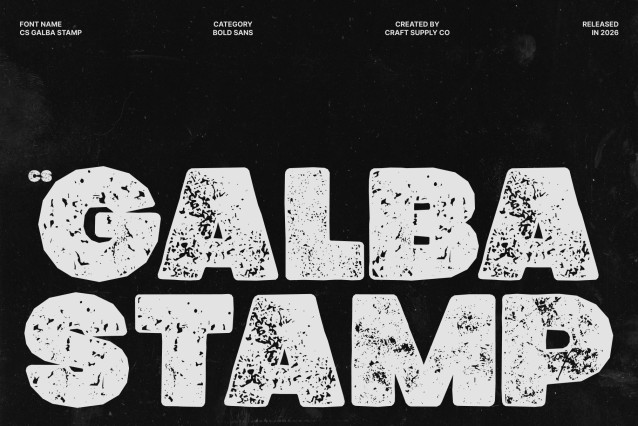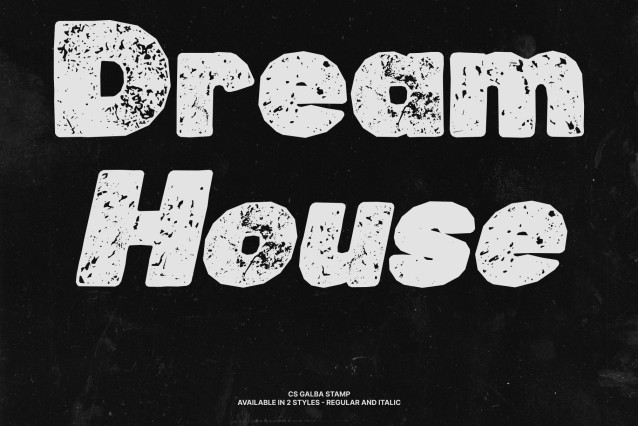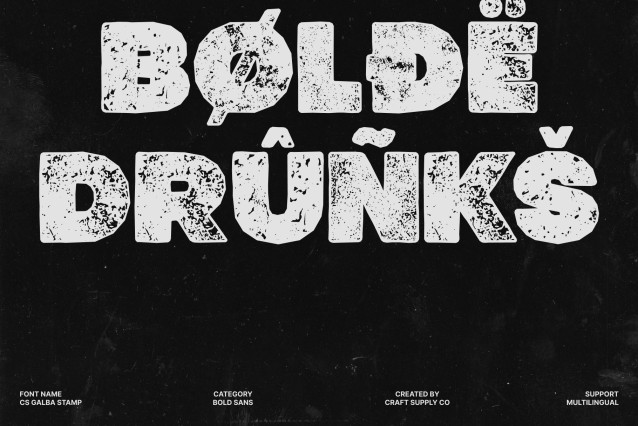
CS Galba Stamp Font
CS Galba Stamp – Bold Sans Serif with Geometric Precision
Bold and Expressive Design
This font is a bold sans serif display font crafted to capture attention instantly. Its strong, modern letterforms combine geometric precision with dynamic proportions, creating a visually striking presence that stands out in headlines, branding, and poster designs.
Geometric Shapes for Modern Clarity
The sharp geometric structure enhances readability while delivering a contemporary aesthetic. Each character is carefully balanced to create a sense of order, clarity, and vibrant modern appeal.
Stamp Texture with Industrial Vintage Character
Enhanced with a distinctive stamp effect, this font gains a rugged vintage personality. The textured, ink-pressed appearance introduces subtle imperfections inspired by industrial printmaking and classic posters, adding depth, authenticity, and an artistic worn texture to every letterform.